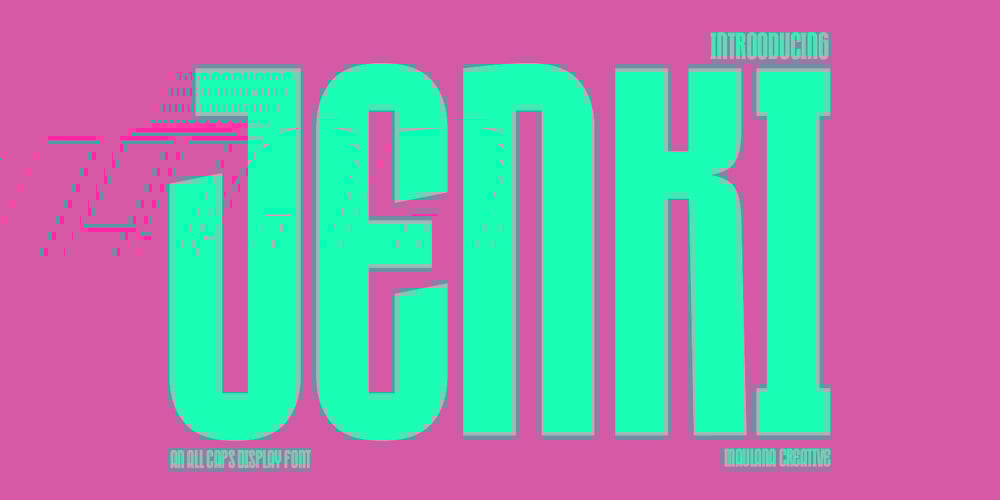
MC Jenki
MC Jenki font
MC Jenki Font Family was designed by Gilang Maulana and published by Maulana Creative. MC Jenki contains 2 styles and family package options. Jenki is an all caps sans serif display font. With medium consist stroke, fun character with a bit of ligatures, To give you an extra creative work. Jenki font support multilingual more than 100+ language. This font is good for logo design, Social media, Movie Titles, Books Titles, a short text even a long text letter and good for your secondary text font with sans or serif. Make a stunning work with Jenki font.Cheers,Maulana Creative